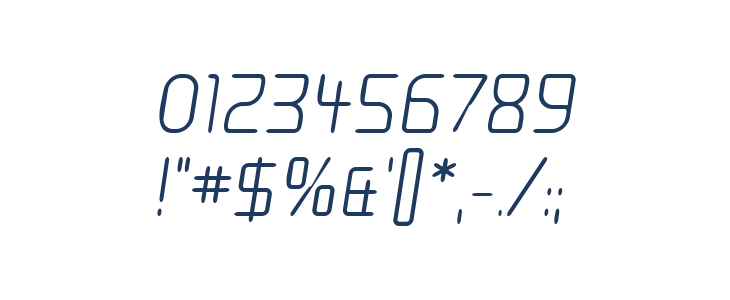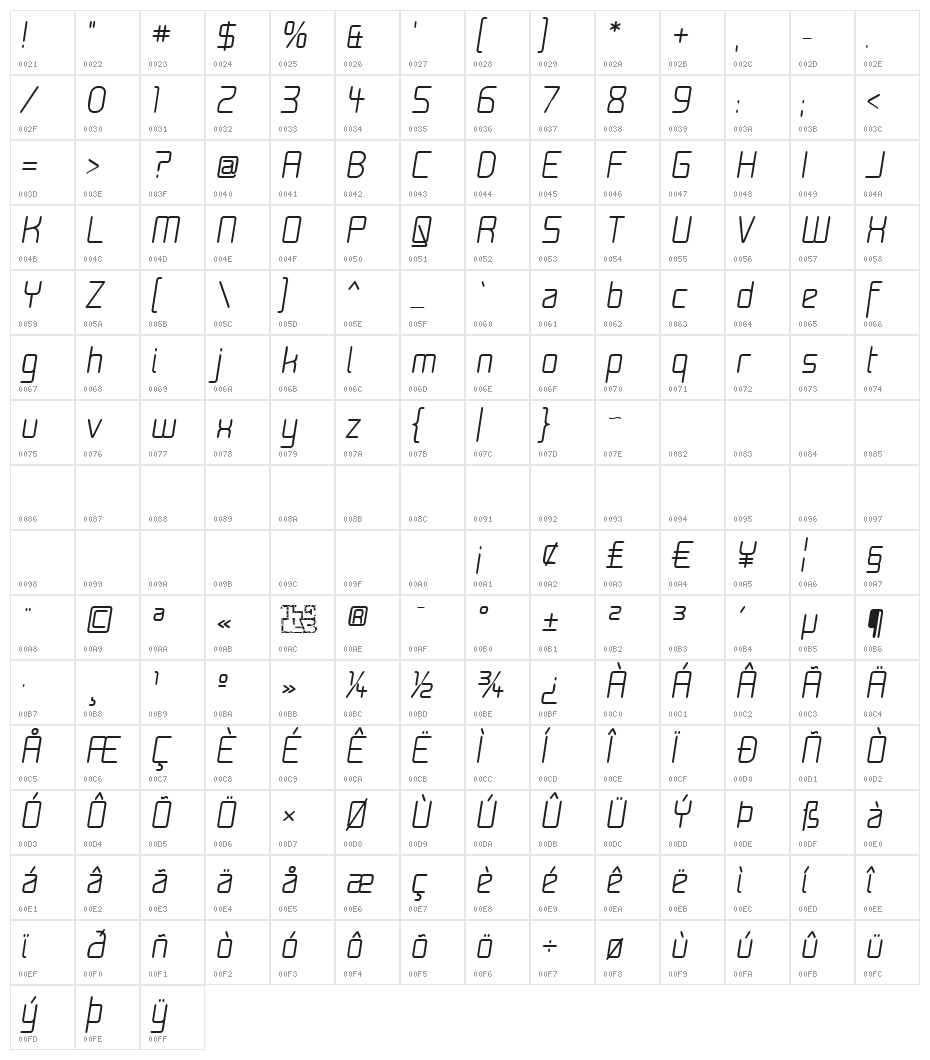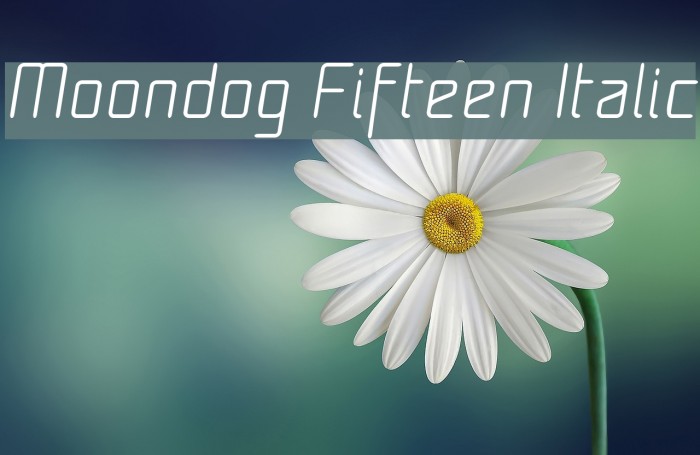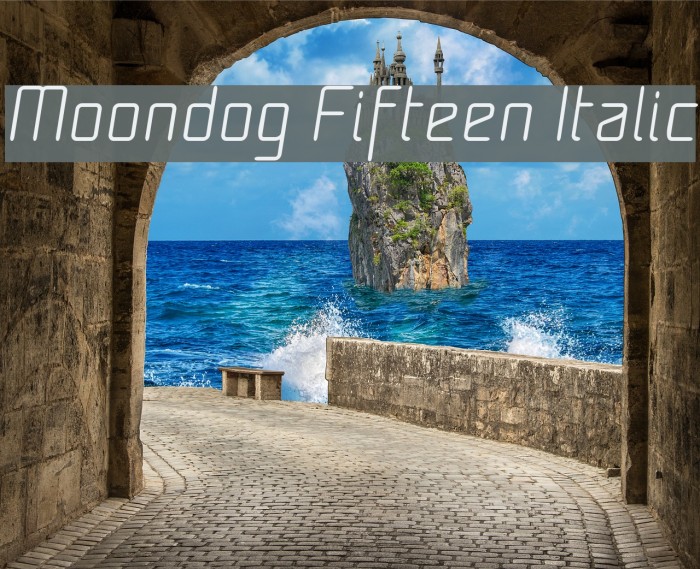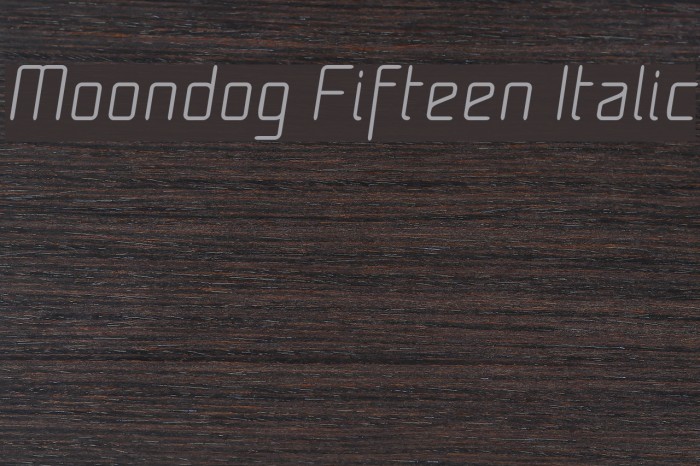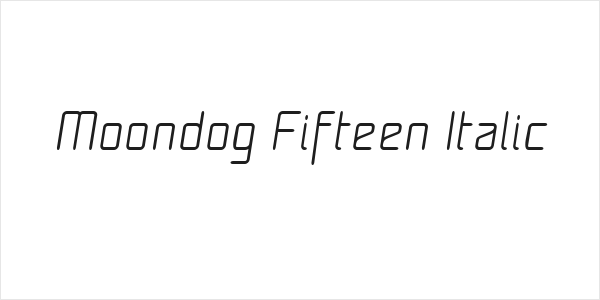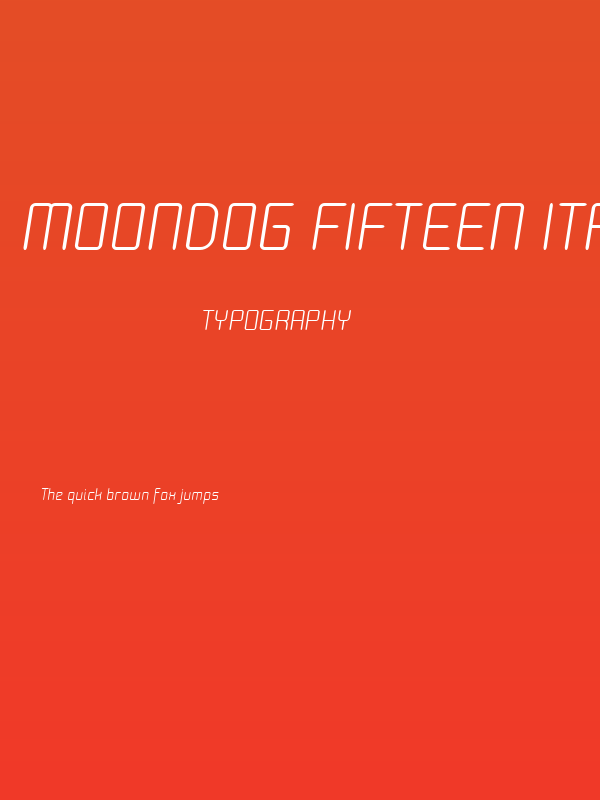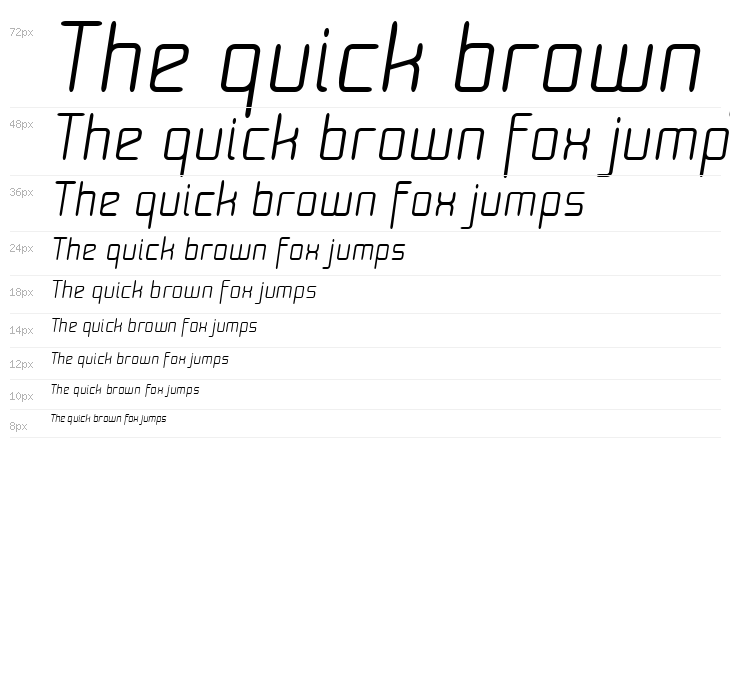
Moondog Fifteen Italic Font
Moondog Fifteen Italic Description
This font exhibits a sleek and modern design with a distinct italic slant, giving it a dynamic and forward-moving appearance. The characters are elongated with rounded edges, creating a sense of fluidity and motion. The uppercase and lowercase letters maintain a consistent style, with the lowercase letters slightly more compact. Numbers are clear and legible, matching the overall aesthetic. Special characters are well-integrated, maintaining the font's cohesive look. The font's thin strokes and minimalistic design make it suitable for contemporary applications, where a clean and stylish presentation is desired.